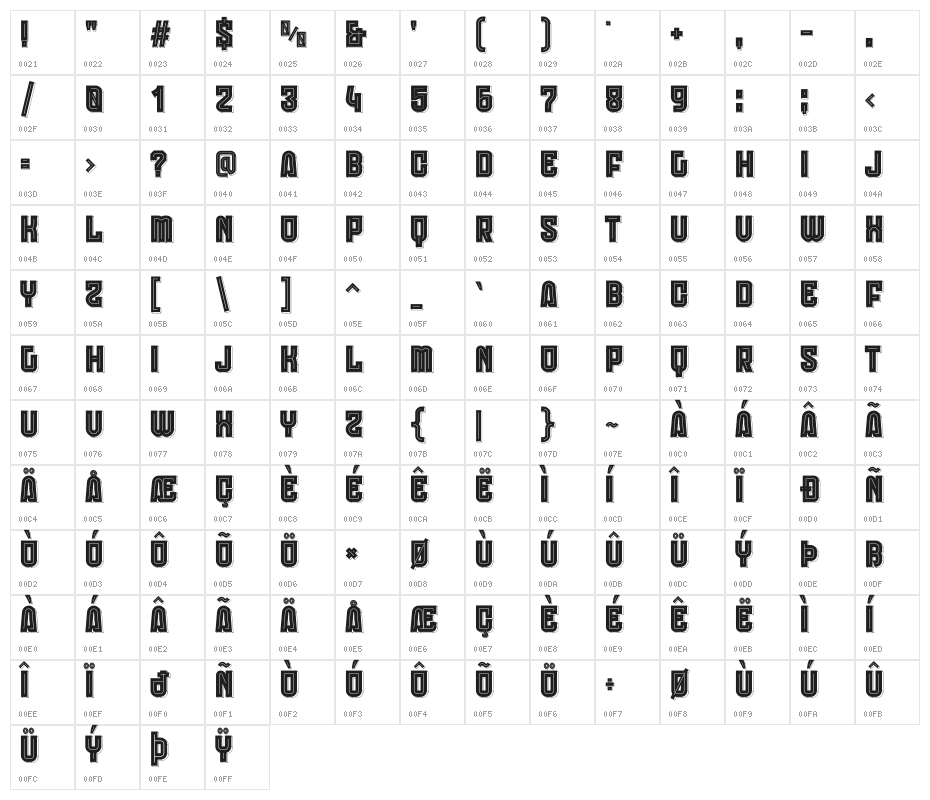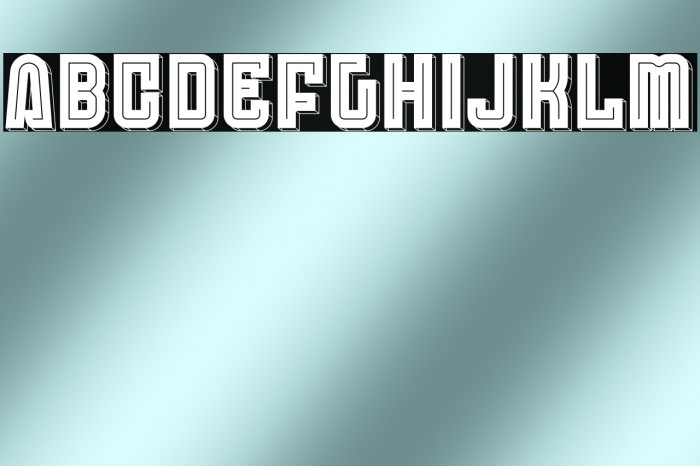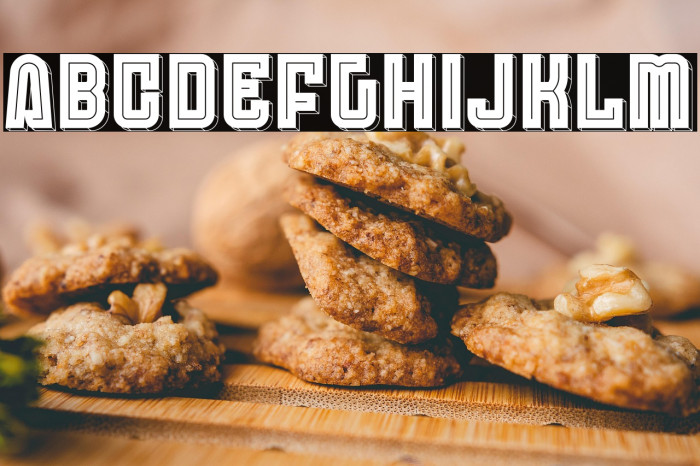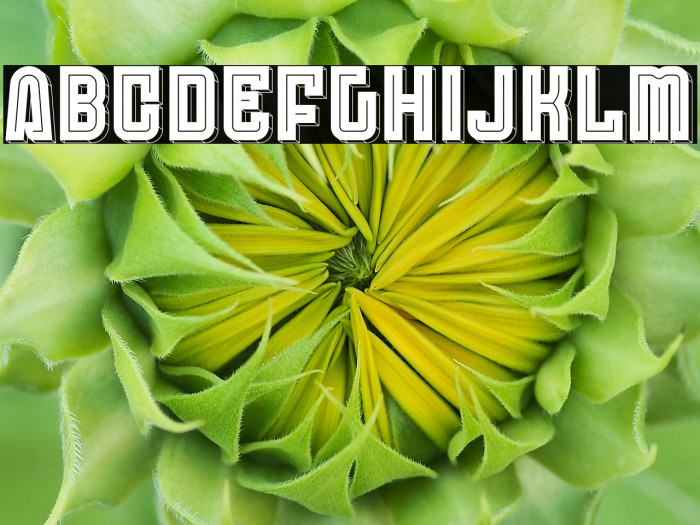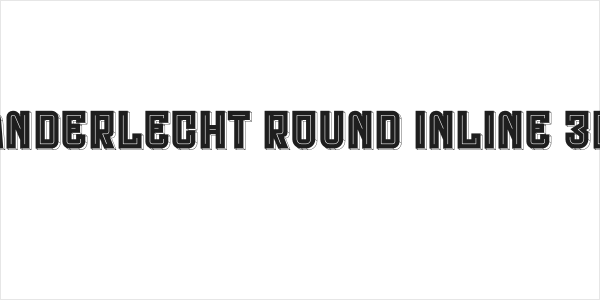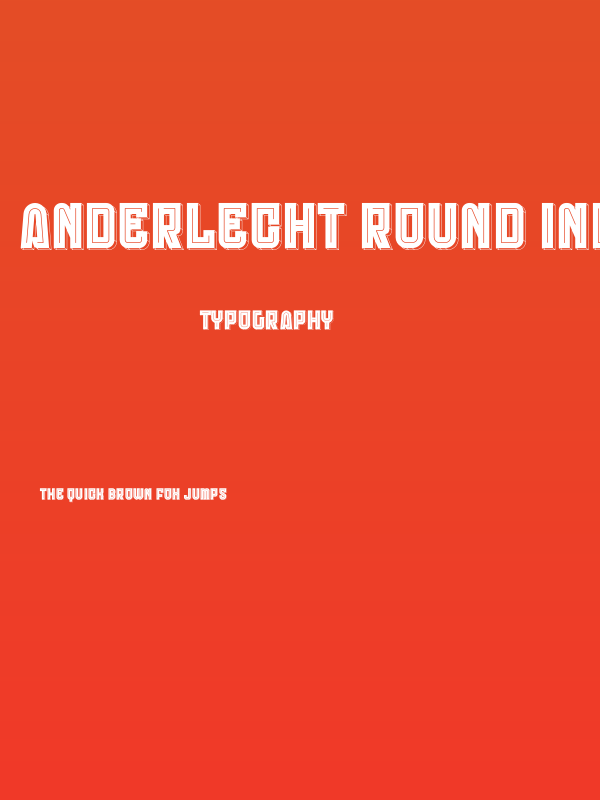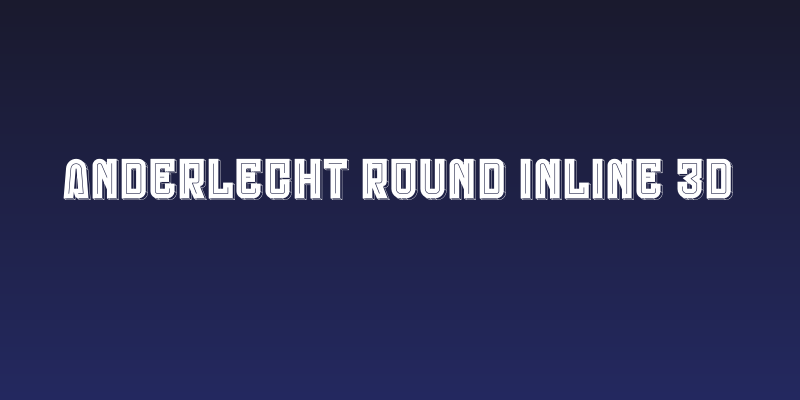
Anderlecht Round Inline 3D Font
Anderlecht Round Inline 3D Description
This font features a bold, three-dimensional design with an inline style that adds depth and character to each letter. The uppercase and lowercase letters maintain a consistent geometric structure, with rounded edges that soften the overall appearance. The numbers and special characters follow the same design principles, ensuring uniformity across all glyphs. The font's boldness and 3D effect make it particularly eye-catching, suitable for projects that require a strong visual impact. Its unique style is both modern and slightly retro, appealing to a wide range of design aesthetics.
| Overall Style | Modern, Retro |
| Proposed Projects | Ideal for posters, headlines, branding, and any design requiring a striking visual element. |